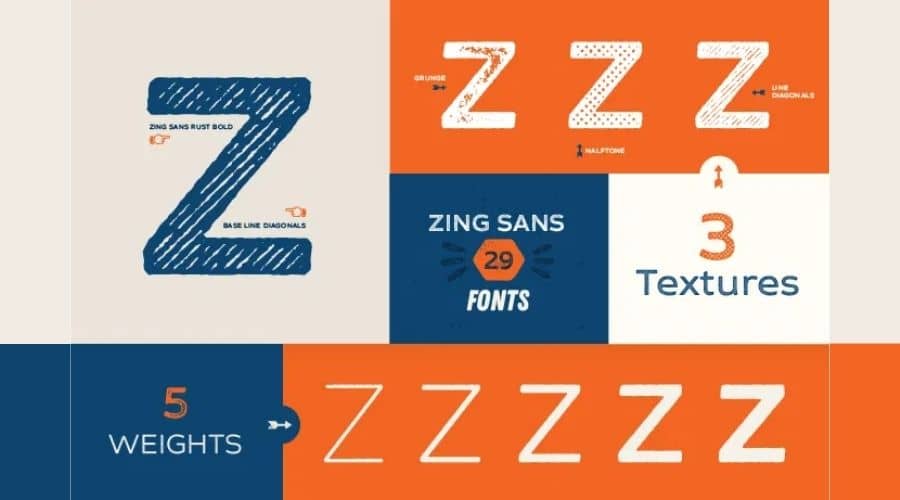
Zing Rust Font Family
The Zing Rust Font Family is now available! Fontfabric produced and published the Zing Rust typeface family. On January 27, 2018, the Font was made public. This fantastic Script font was created with attention and professionalism. Zing Rust is a massive package with 521 handcrafted fonts! Zing RustTM, as the name suggests, represents the lively freshness of your ideas and aggressive creations.
It comprises the Zing RustTM, Zing Script RustTM, Zing Sans RustTM, and Zing Goodies RustTM sub-families, with the main star Zing Rust with special mention to Zing Script Rust featuring fully working OpenType capabilities and contextual alternates. This Script font comes in a variety of weights, giving you a wide range of options. The typeface is available in two different formats, which are OTF and TTF.
Zing Rust shows the indisputable freshness of your concepts and striking designs, as the name suggests. The same characteristics can be seen in the display font textures. This vintage font family takes a thoughtful approach to readability and text display. Each comes with a variety of weights, offering you the greatest creative energy instruments.
This Script typeface is suitable for a wide range of tasks. For example, designing corporate logos, official business cards, wedding or invitation cards, and giving certificates and awards a feeling of occasion. It can also be used for advertising purposes with short and long text paragraphs.